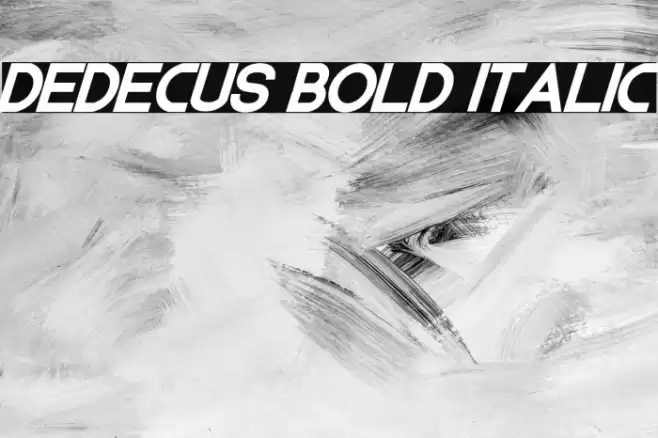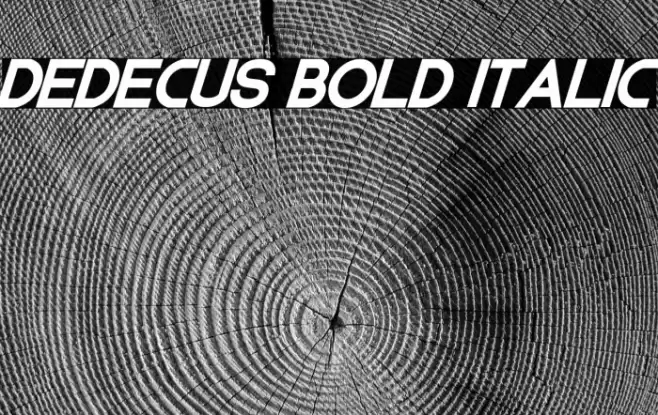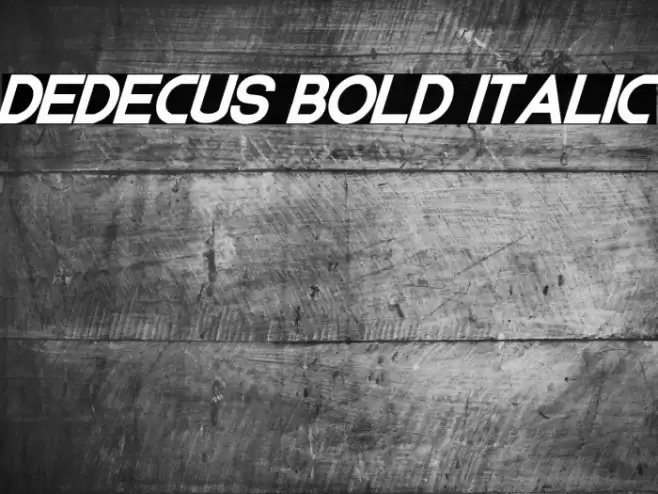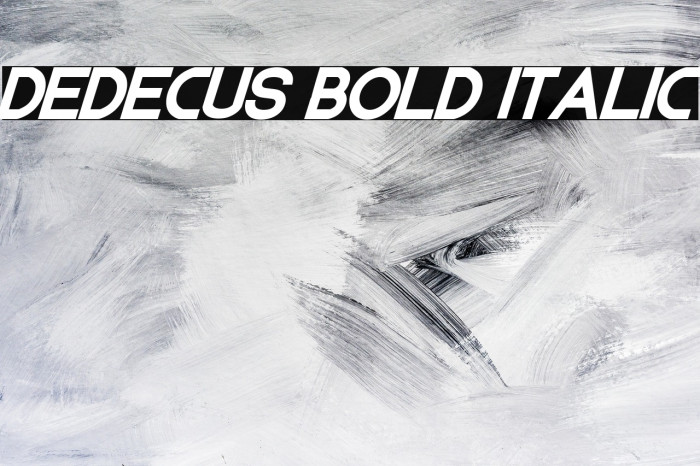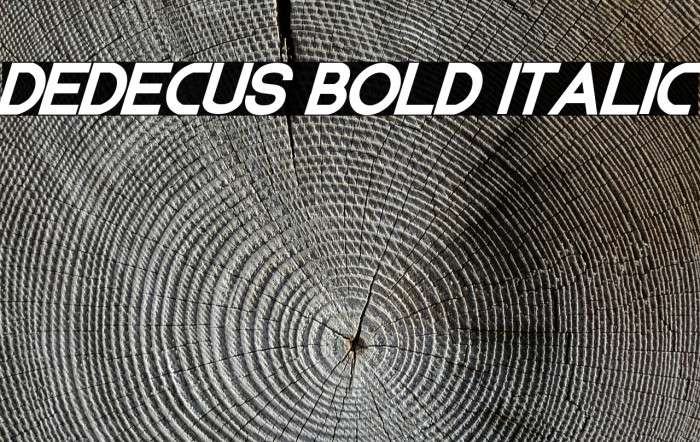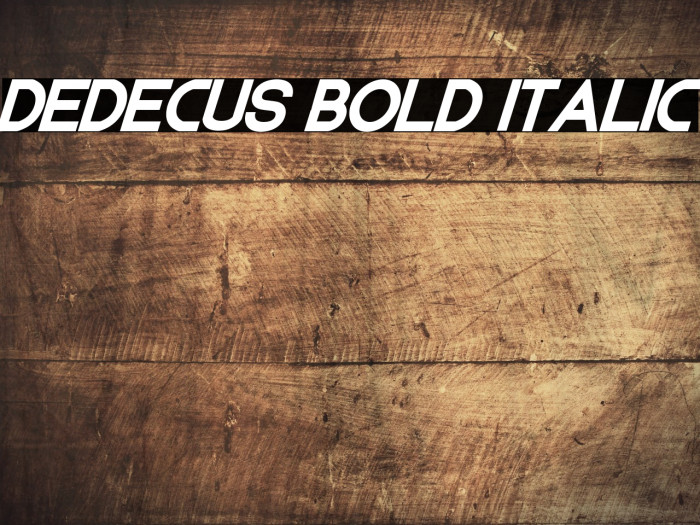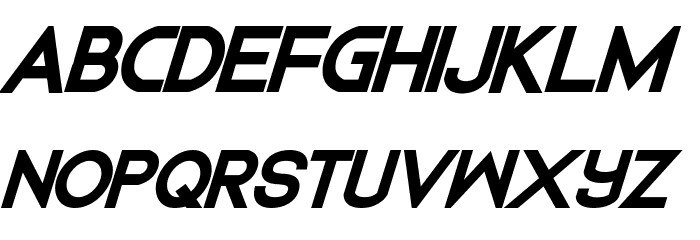
Dedecus Bold Italic Font
Dedecus Bold Italic Description
This font exhibits a bold and italicized style, characterized by its strong, angular lines and dynamic slant. The uppercase letters are prominent and convey a sense of urgency and modernity. The design is sleek and geometric, with a futuristic appeal that makes it stand out. The characters are tightly spaced, enhancing the compact and cohesive look. The font's bold weight and italic style give it a powerful presence, suitable for impactful headlines and attention-grabbing designs.
A bold, italicized font with angular lines and a modern, futuristic style from Uncategorized fonts.
- Proposed Projects: Ideal for branding, advertising, and editorial design where a modern and bold statement is needed.
- Character Spacing: Tight